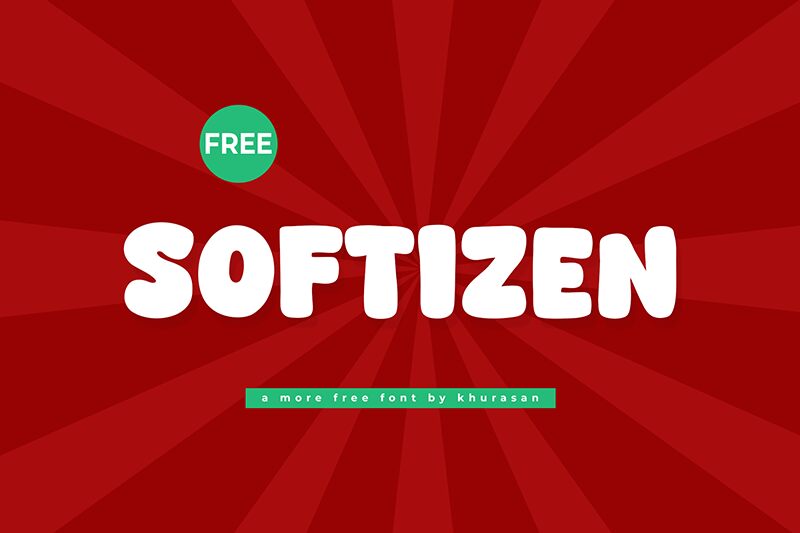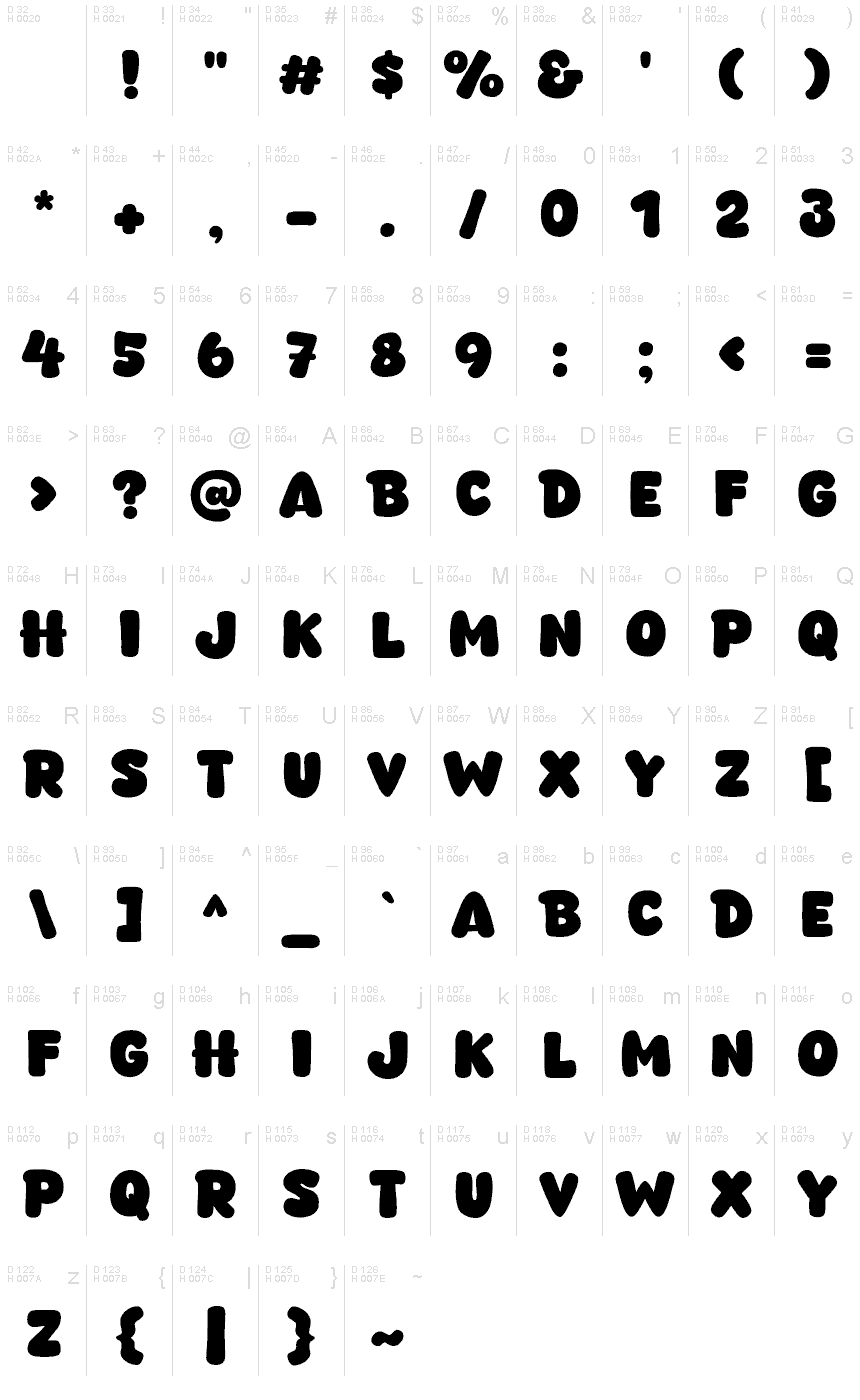
Softizen
Softizen font by Khurasan is a playful and cartoon-style display font that adds a casual charm to your designs. With its thick and bold aesthetic, this approachable font offers a smooth appearance with its rounded style and soft typographic elements. The retro vibe it reflects will make all the difference in designs of different uses.